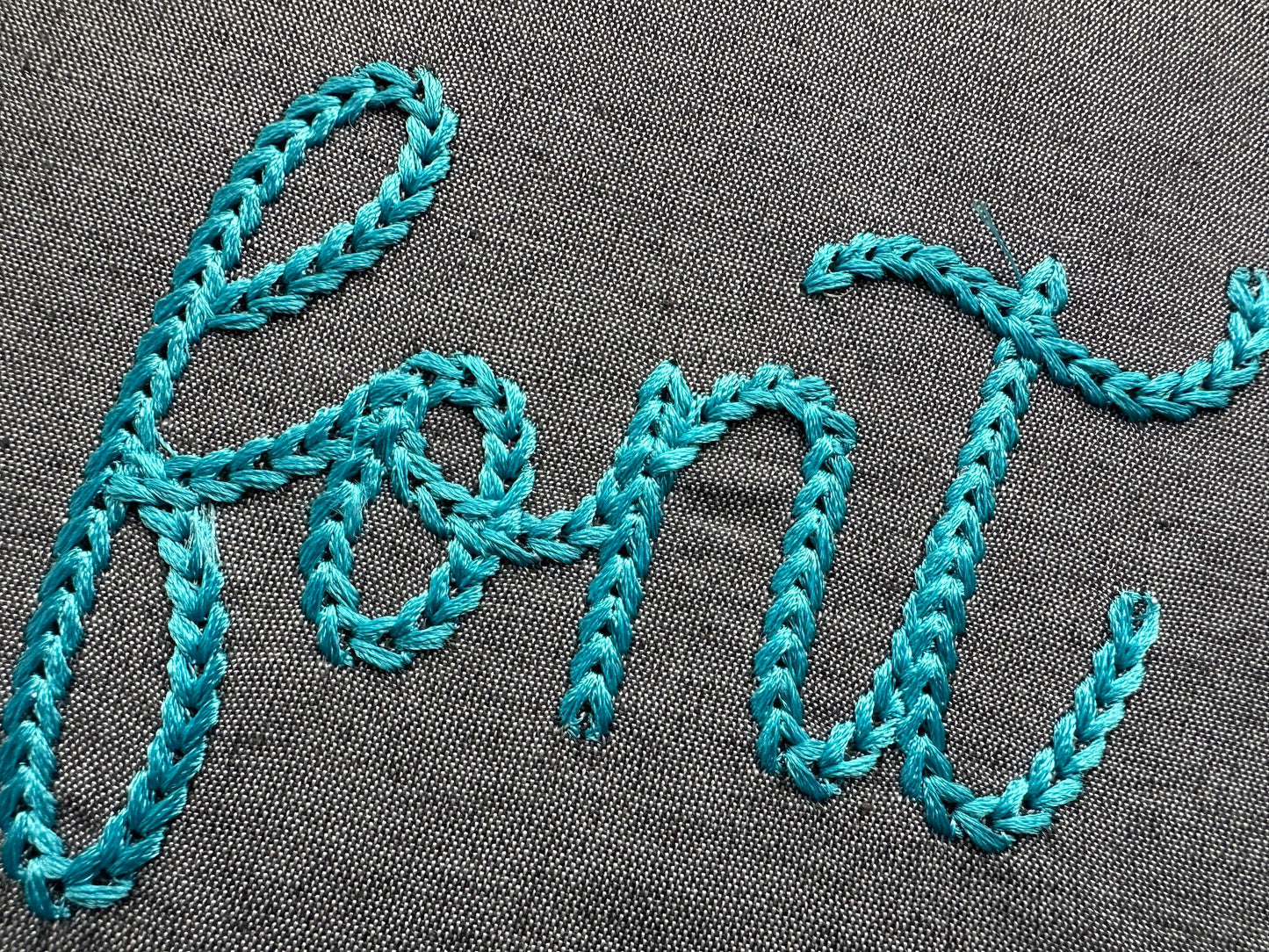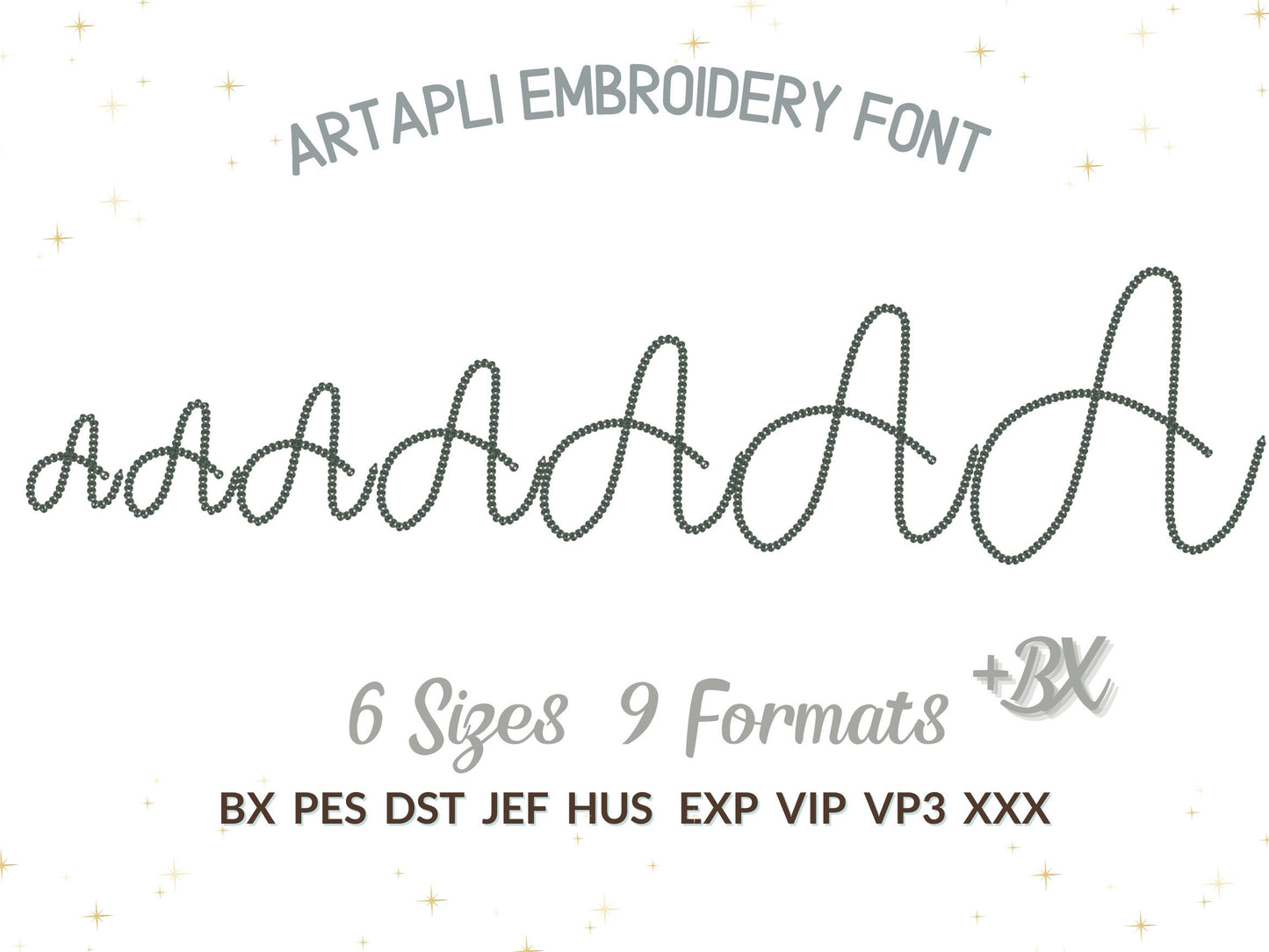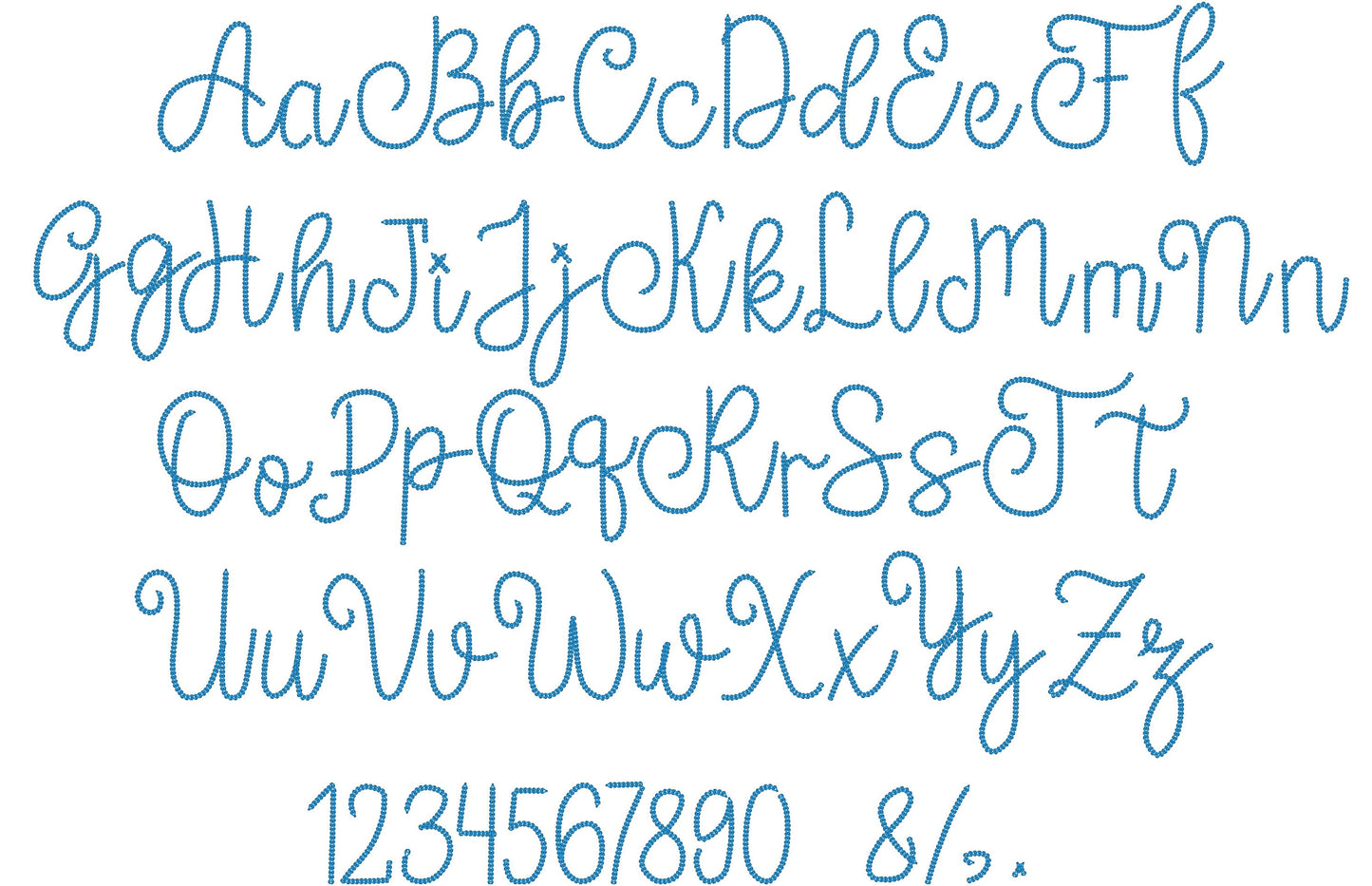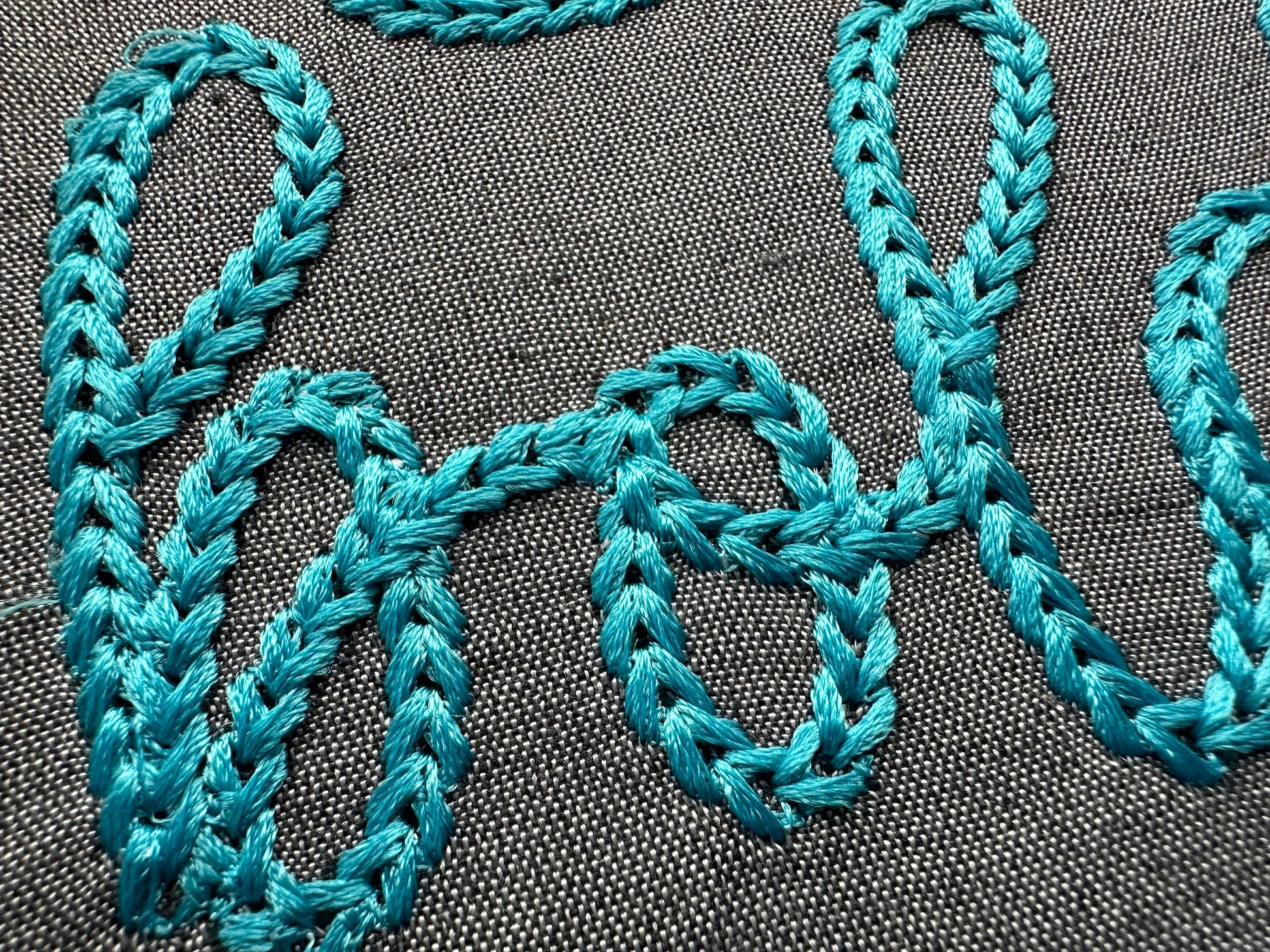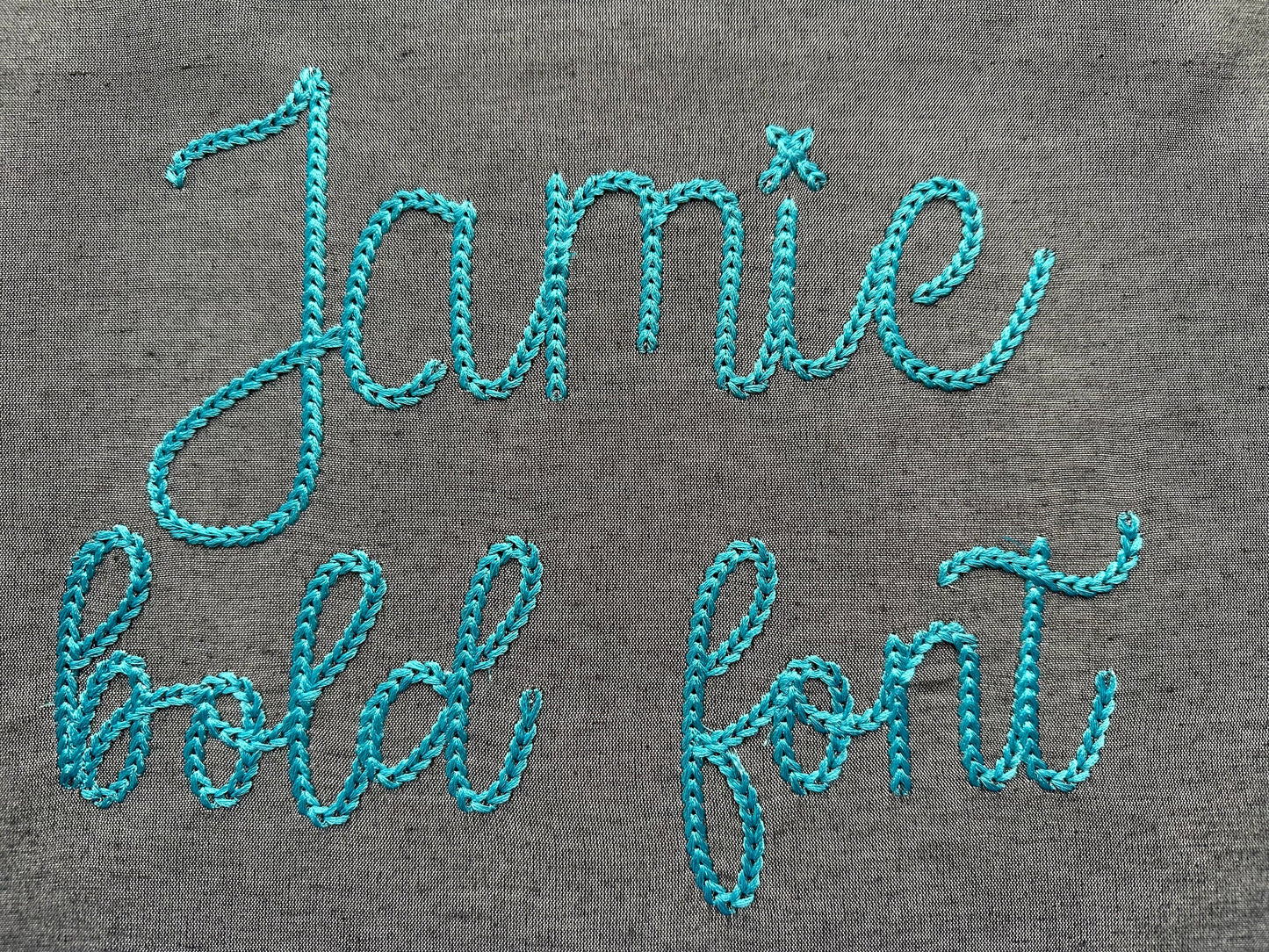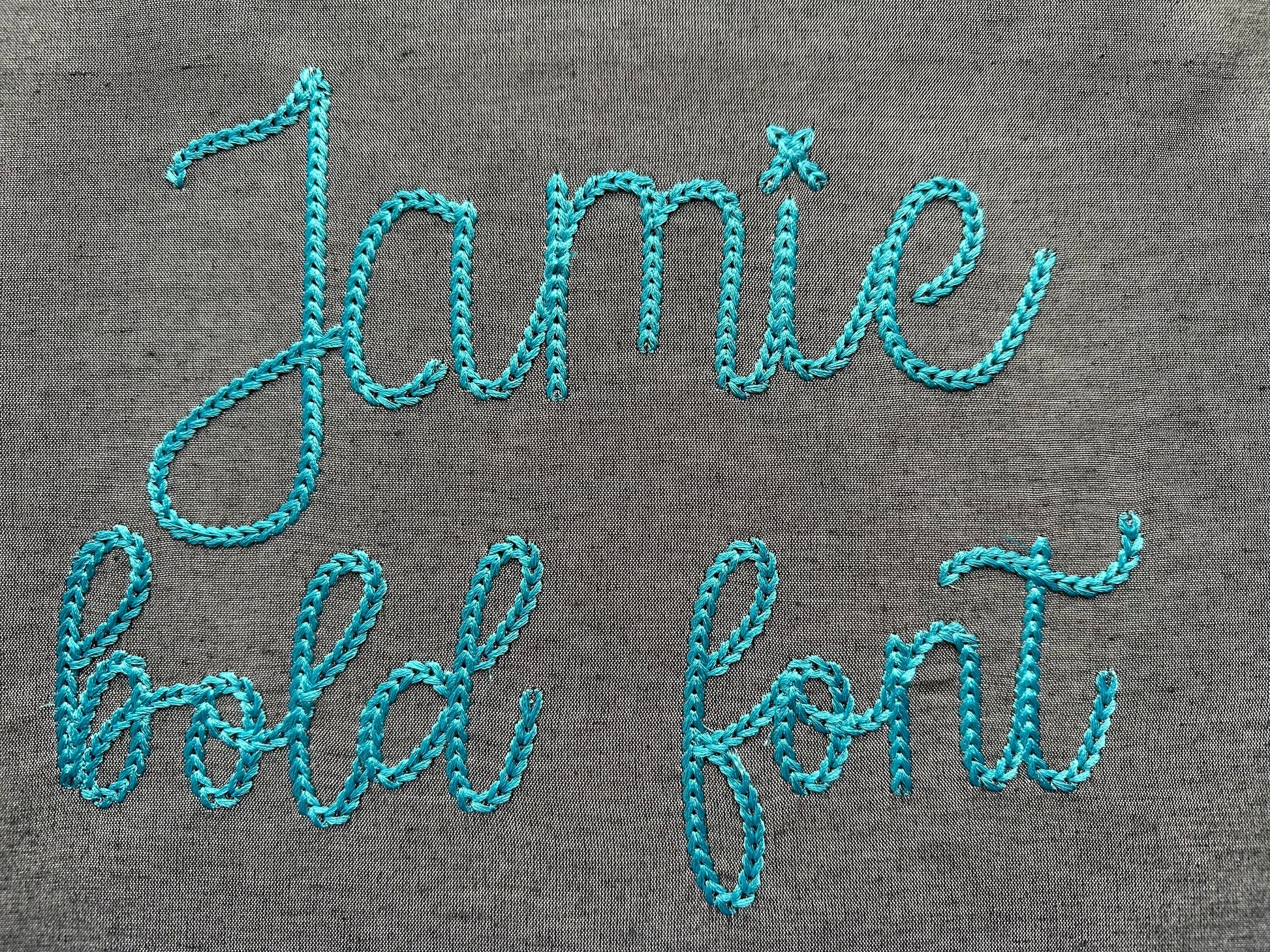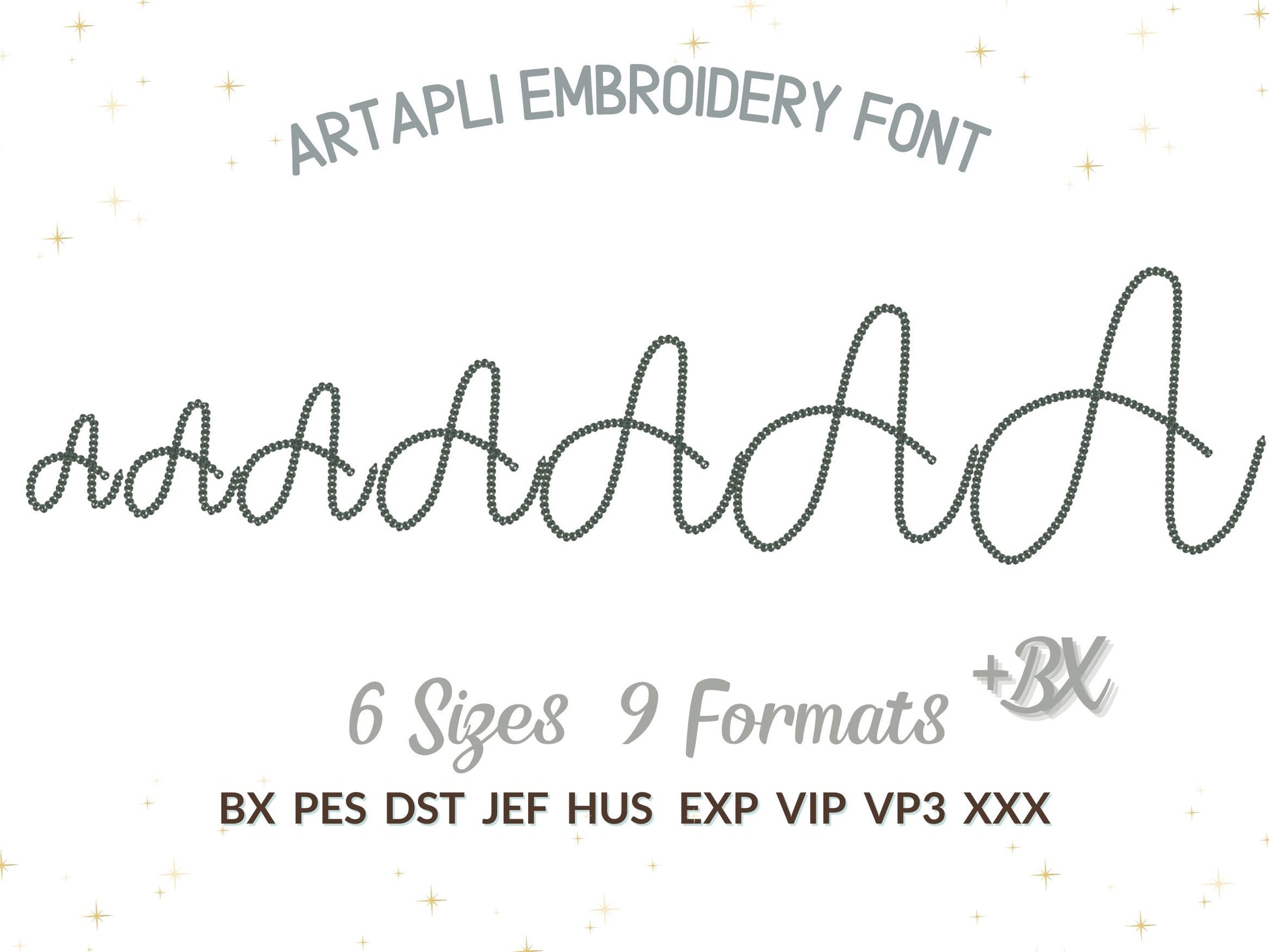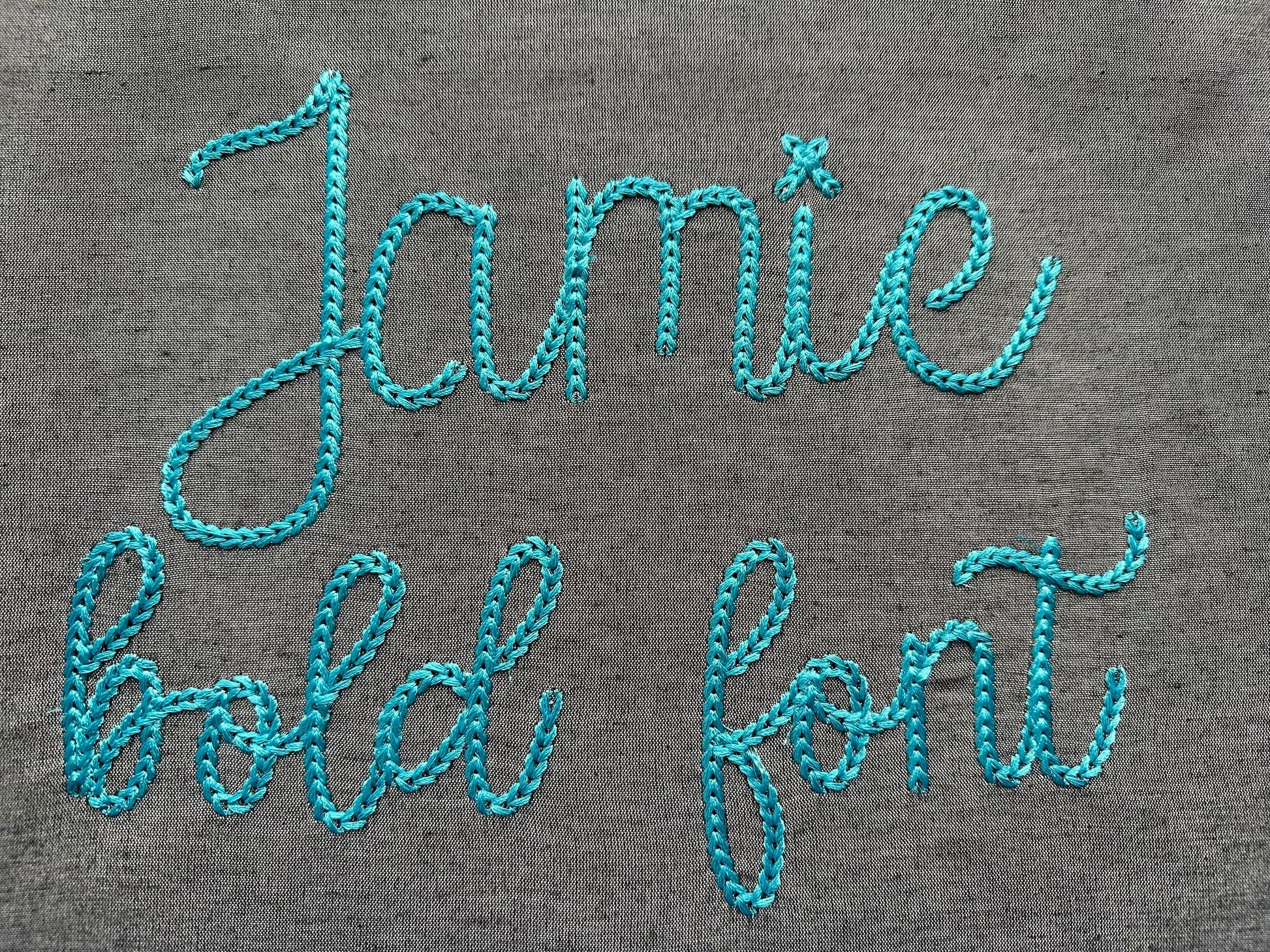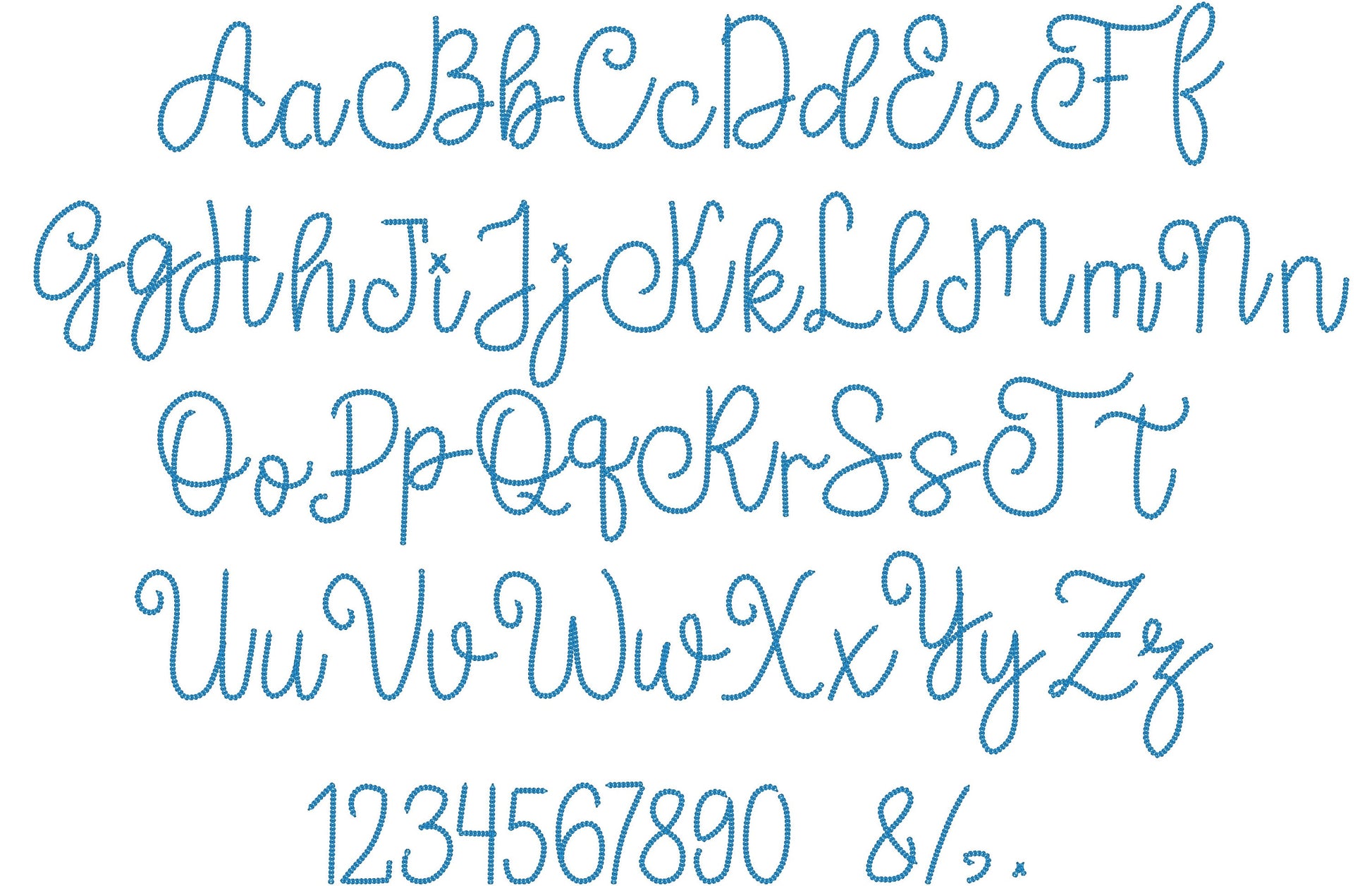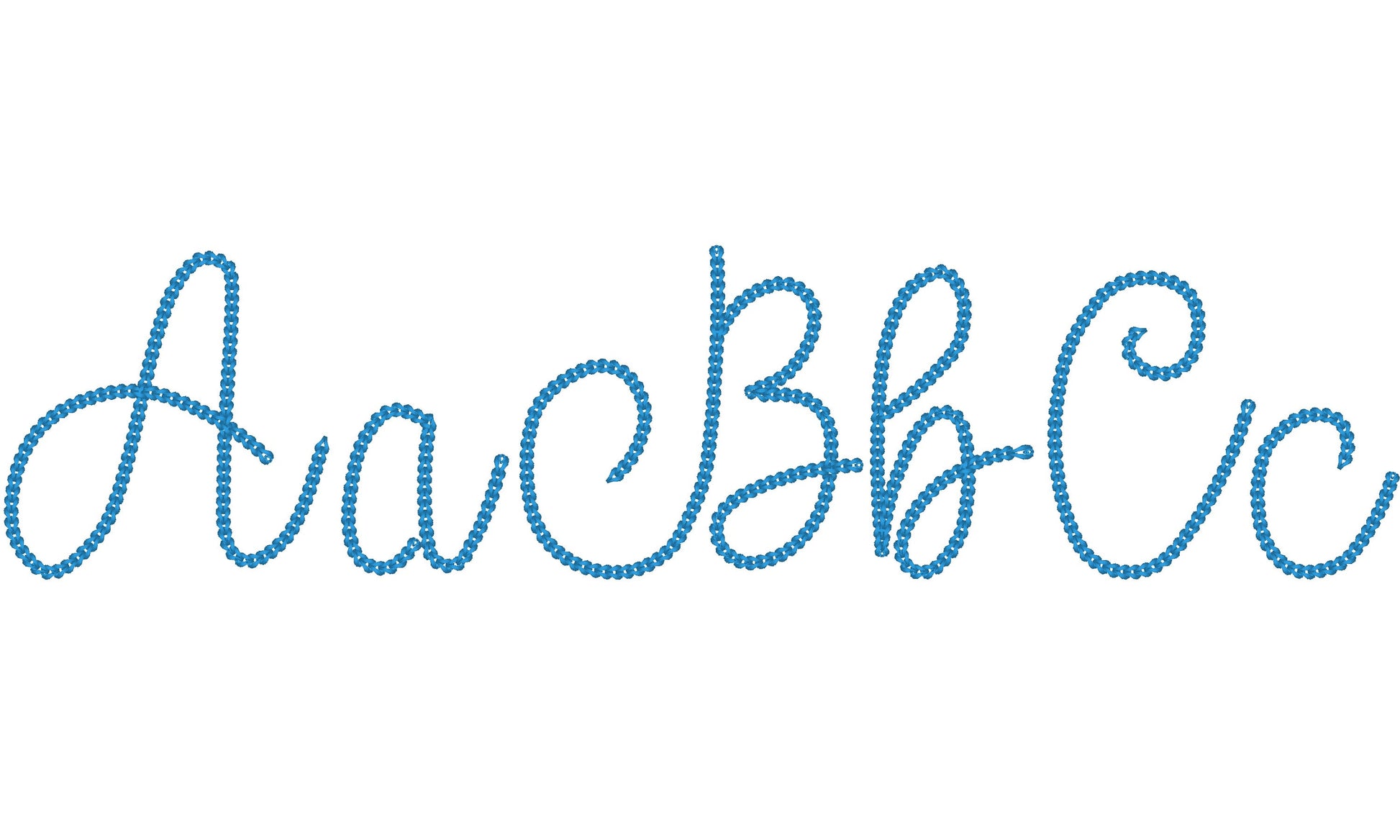
It am really pleasead how it looks.
Perfect font! It stitches out so nicely
Love this font! It stitched out flawlessly.
amazing my new favorite font stitches beautifully
Great font. I was worried about thickness but I made a few items with this and it stitches out wonderfully! I will use this font a lot!
This monogram font stitches out so nicely!!
Brill quality perfect for kids knitted jumpers
Simple Chain Embroidery Font. Good for what I am needing to use it for.
Perfect and beautiful stitch out on chunky knit sweater.
Stitched out beautifully. I love that it came in several sizes
Stitches out as expected. Everyone loved the way it looked without having to be stitched by hand.
Beautiful font! Stitched out so easy & beautiful.
Stitched great. Cute font. Loved it
stitches out great and is really cute
It stitched up so cute! I’ve used it on a couple sweaters. Love how they turned out!
This design is well done, and my stitchout was beautiful!
Fabulous font - very modern and stylish
Beautiful font which stitches out to well 🌈
Cutest font out there! Would recommend purchasing fonts from here because they stitch beautifully!!!